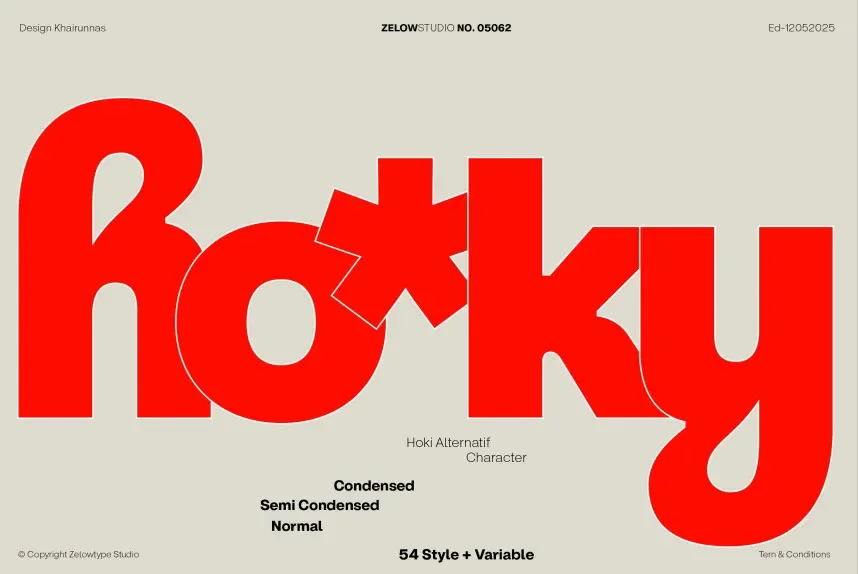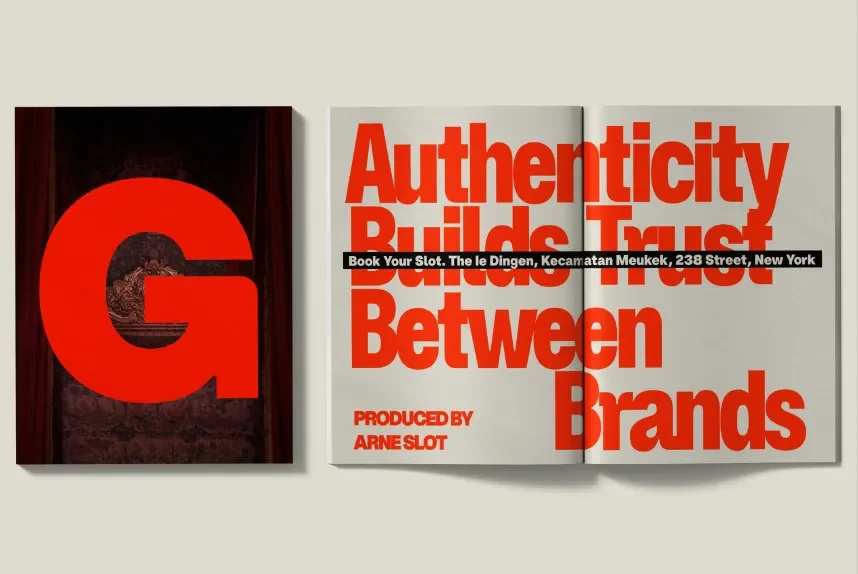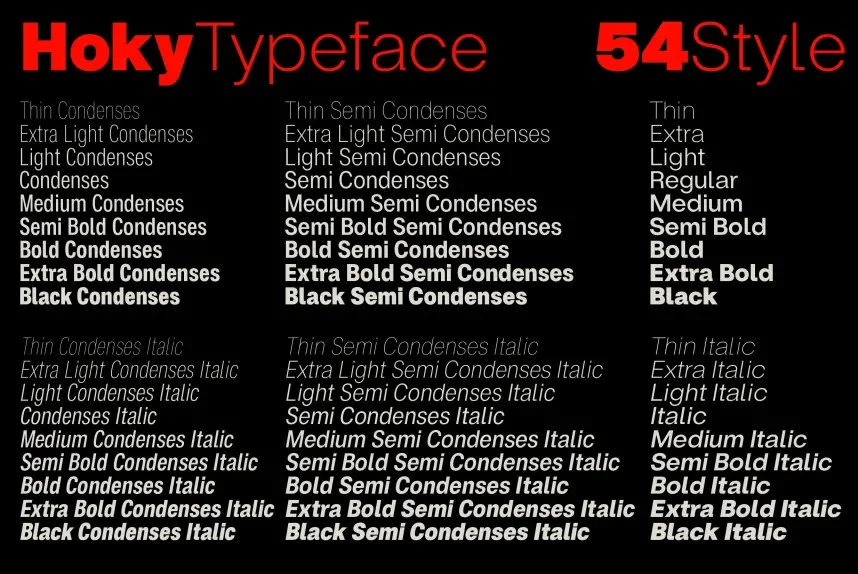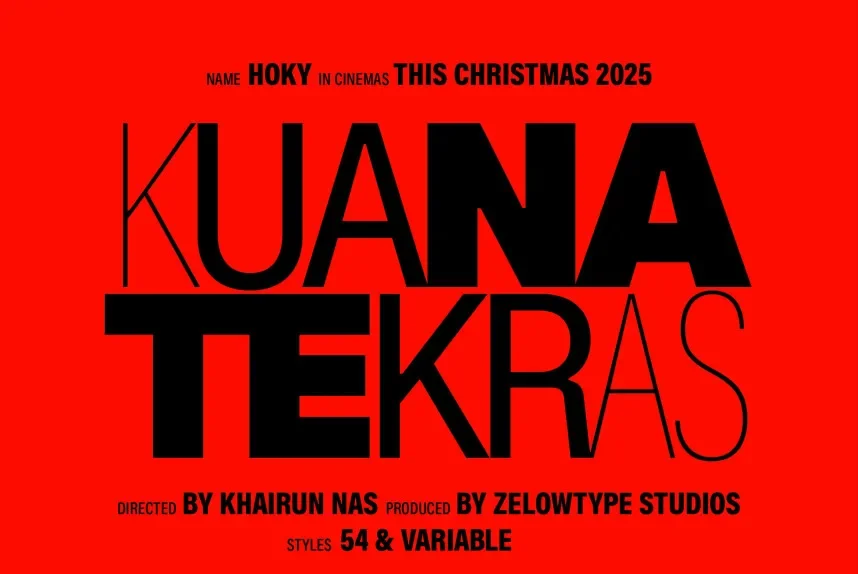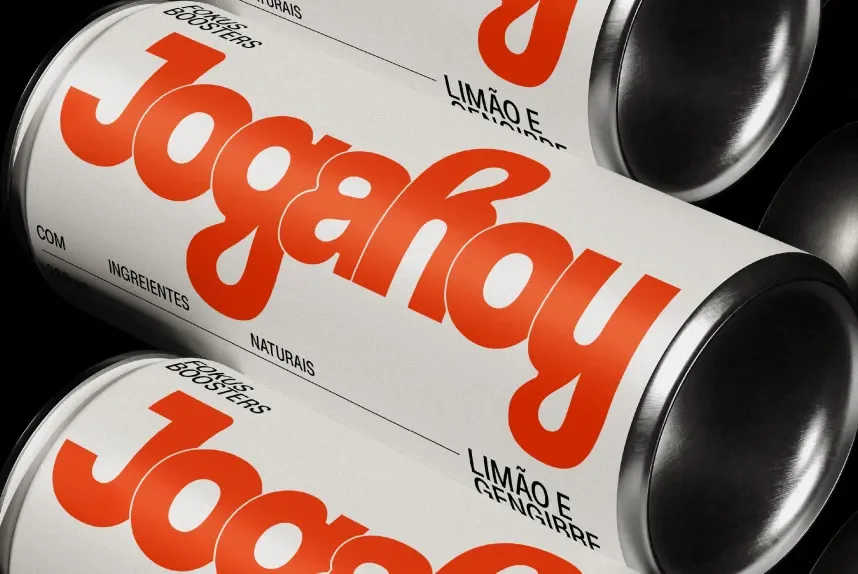
ZT Hoky Typeface is a modern display font created to solve clarity and visual impact challenges in large-scale headings, branding, and poster designs. Designers need bold letterforms that remain readable across print and digital platforms.
The typeface features tall, slightly condensed characters with uniform stroke widths and open counters. Its geometric structure provides balance and legibility for display use while maintaining a contemporary aesthetic.